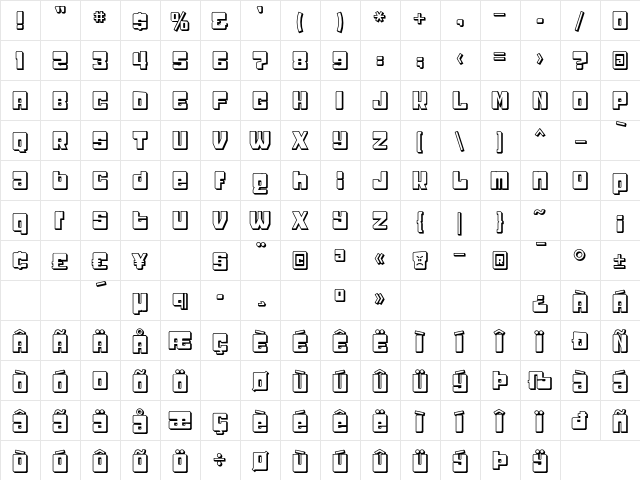
Headcold Shadow Free Font
Headcold Shadow
Style: Shadow
Foundry: Neil Summerour/Positype
Designer: Neil Summerour
Headcold Family
Headcold Shadow
Design Context for Headcold
Headcold is built around its visual character rather than neutral utility - its distinctive forms are designed to make an impression at display sizes.
Font Pairing: Pair with a clean neutral sans-serif for body copy to let Headcold's character lead without overwhelming the composition.
Pro Tip: Use Headcold exclusively at display sizes - it was designed to be seen, not read at length. Let a neutral companion handle body copy.